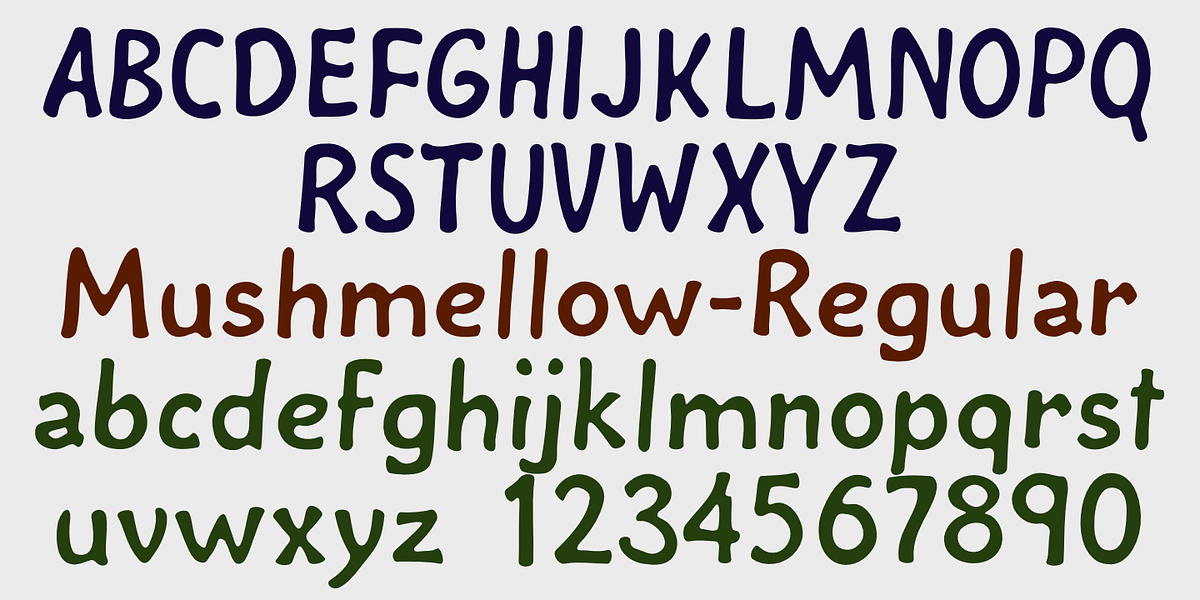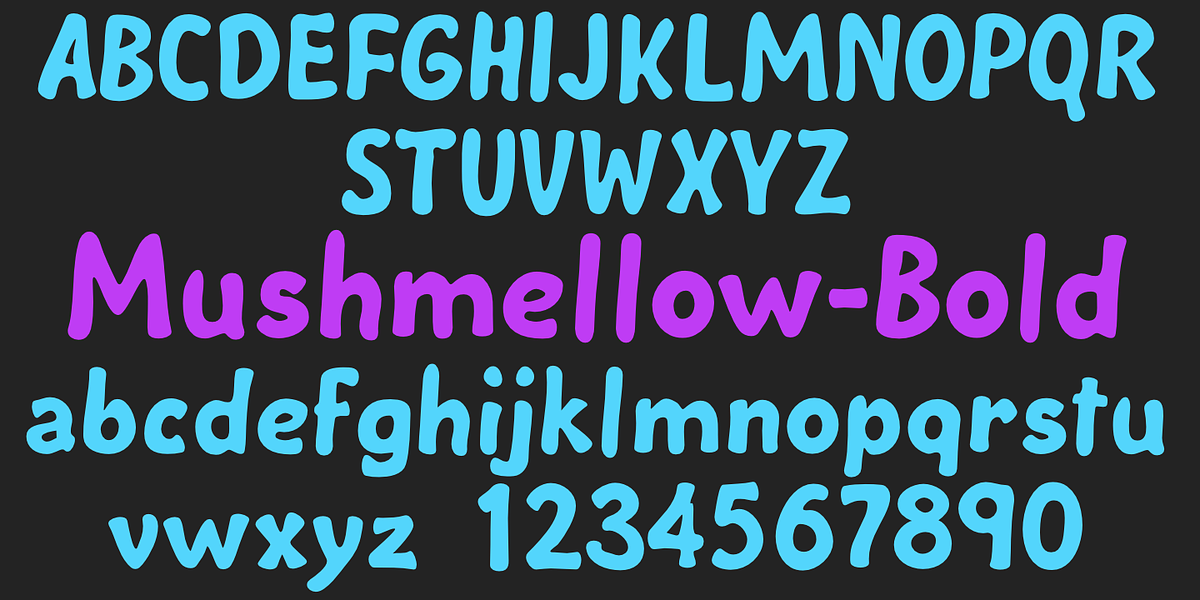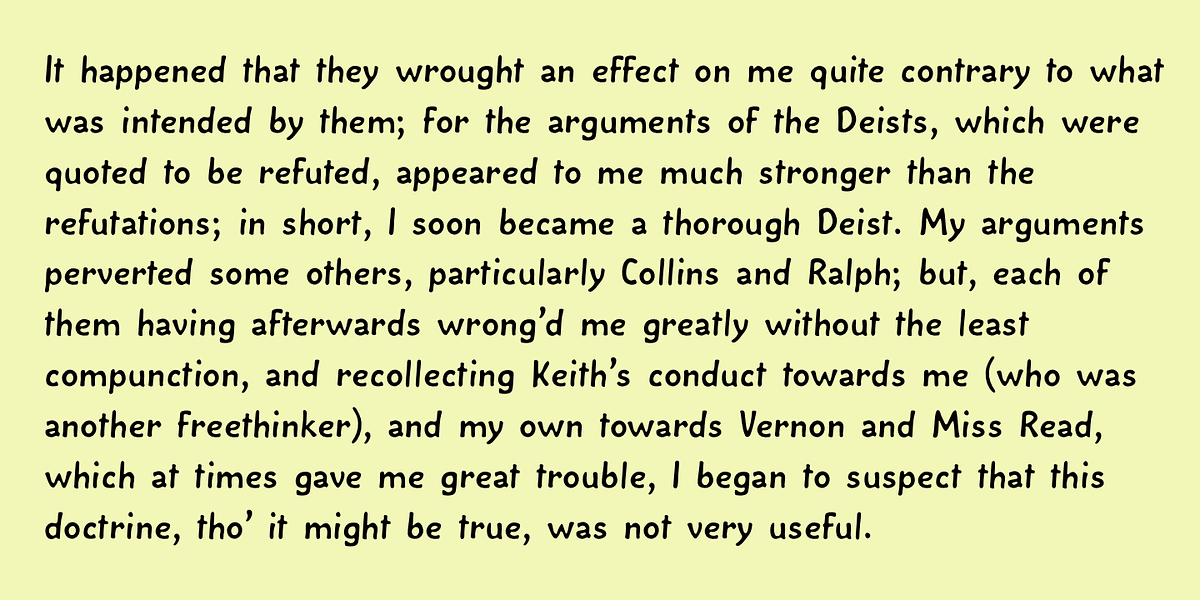
Mushmellow
Mushmellow is a bold sans serif typeface that evokes the casual feel of marker pen handwriting. Its uneven strokes and rounded forms give it a soft yet slightly rough appearance. The font comes in two weights (regular and bold), as well as an outline version, offering versatility for various design applications.